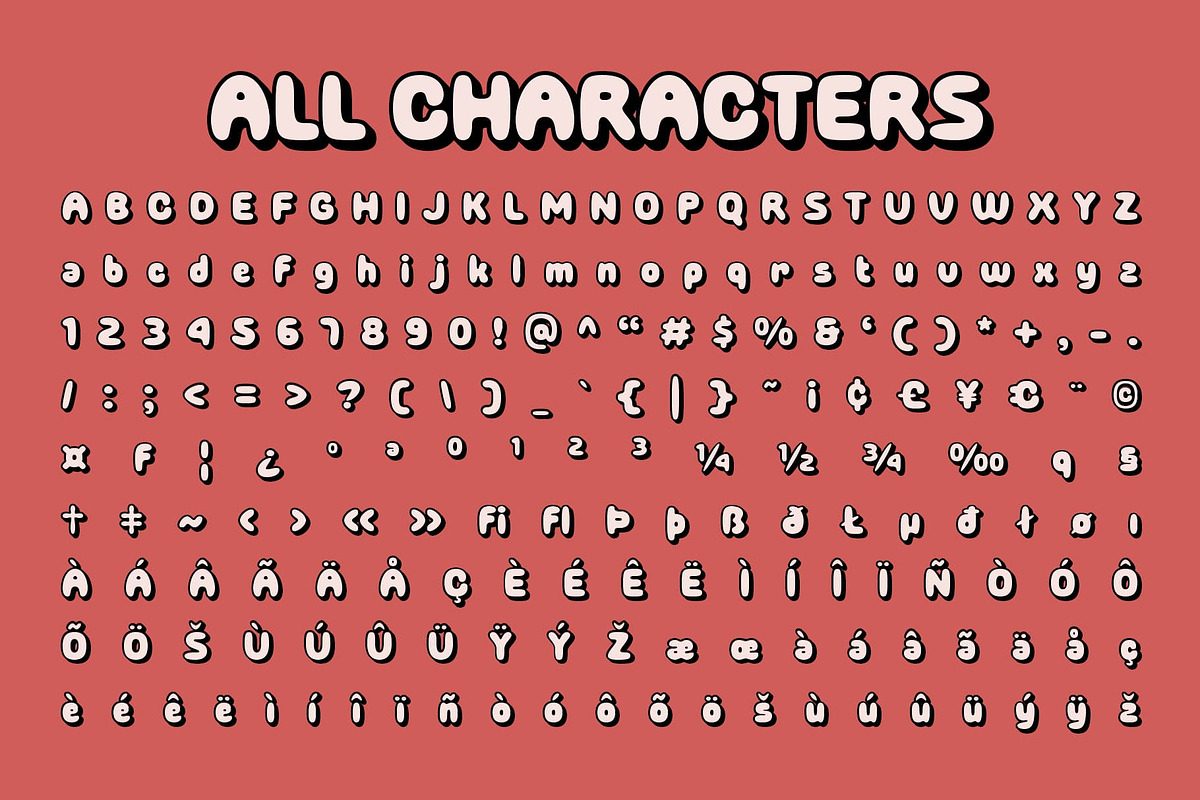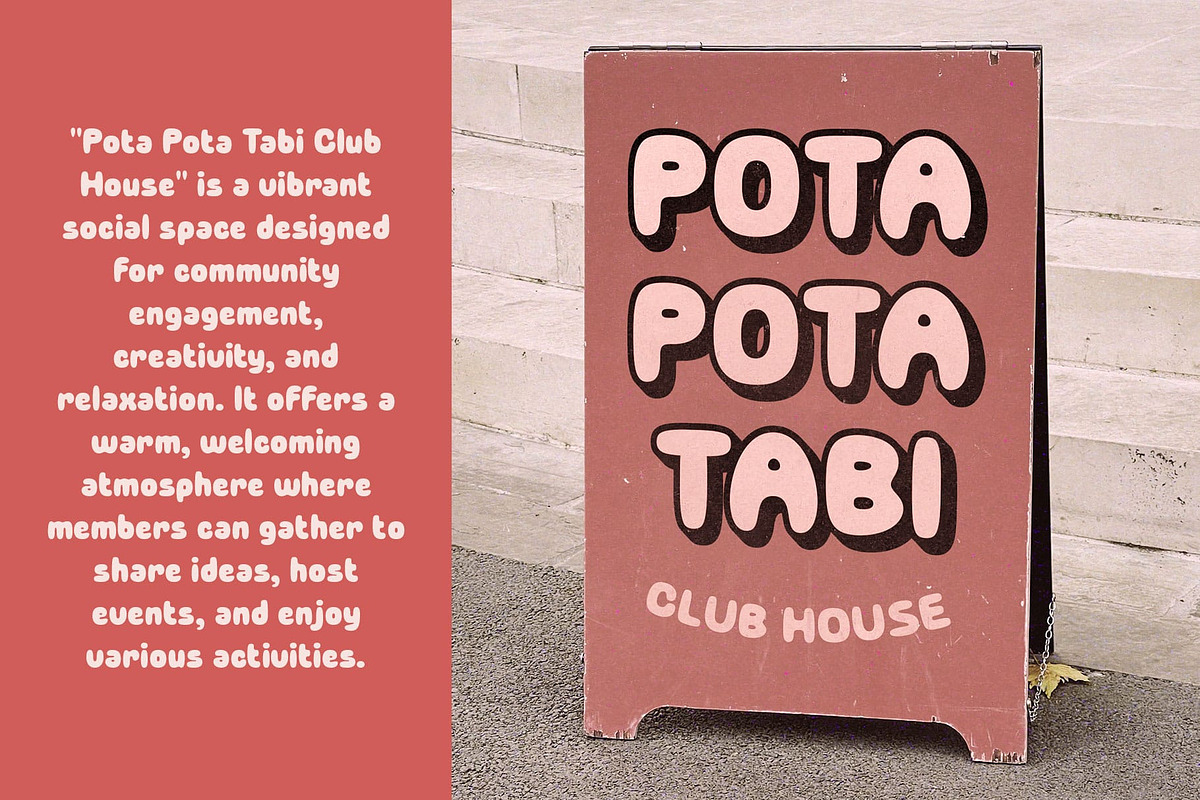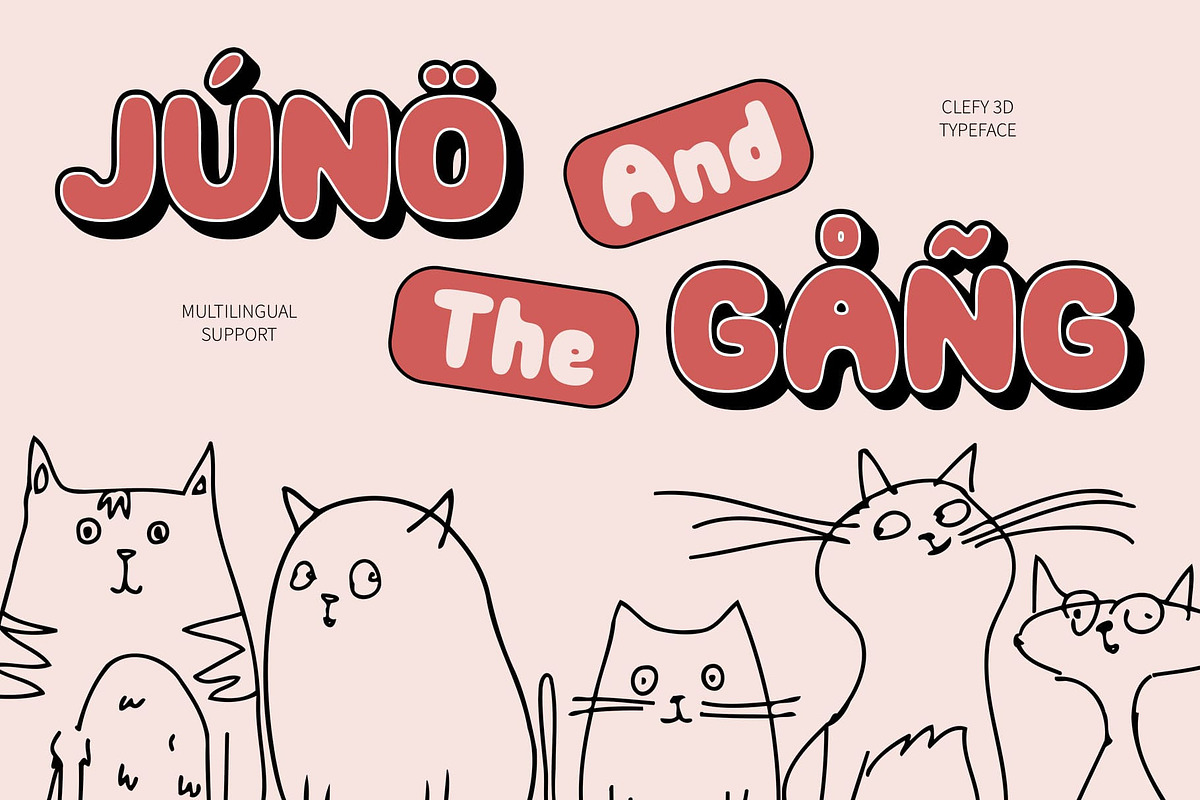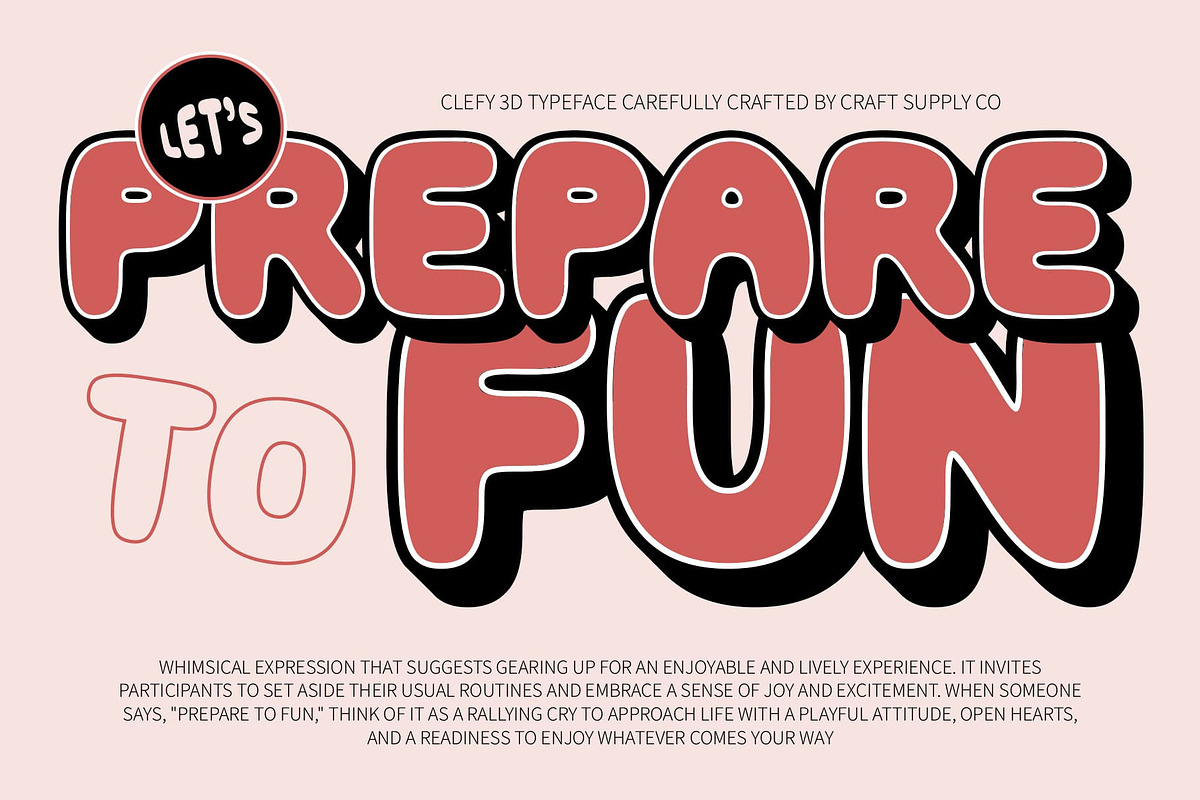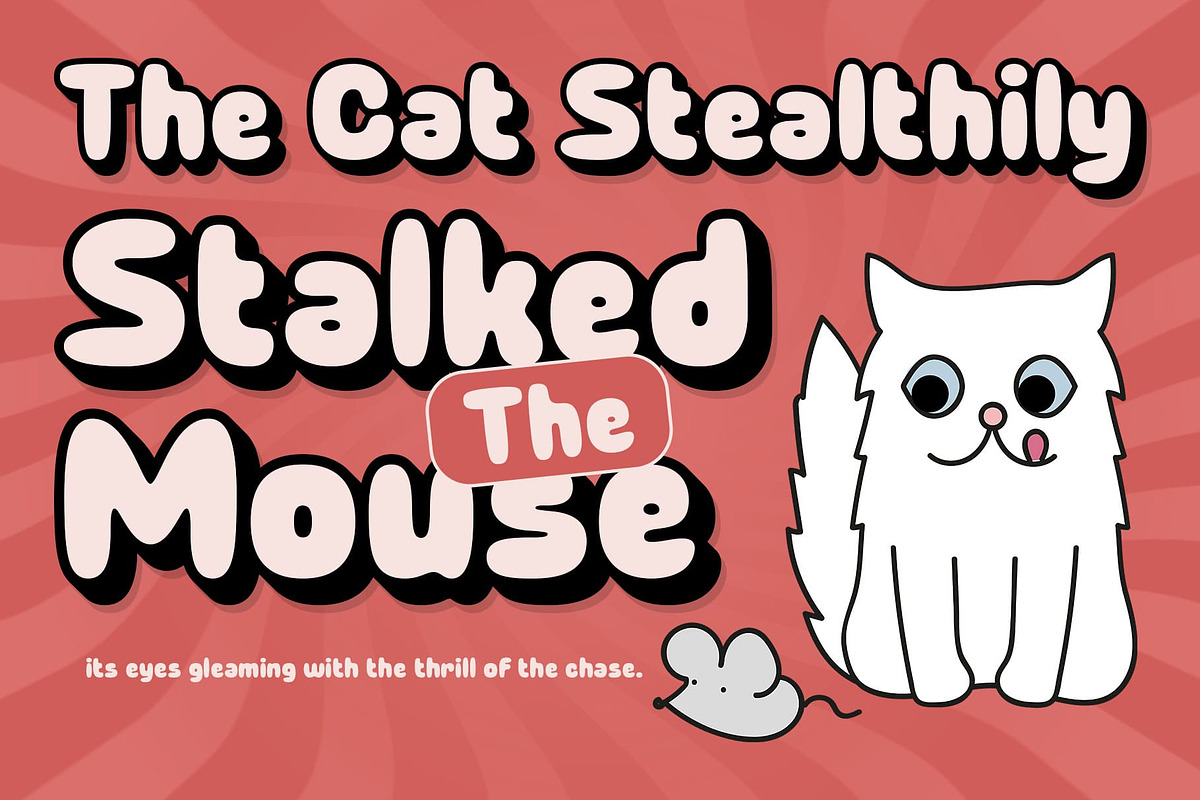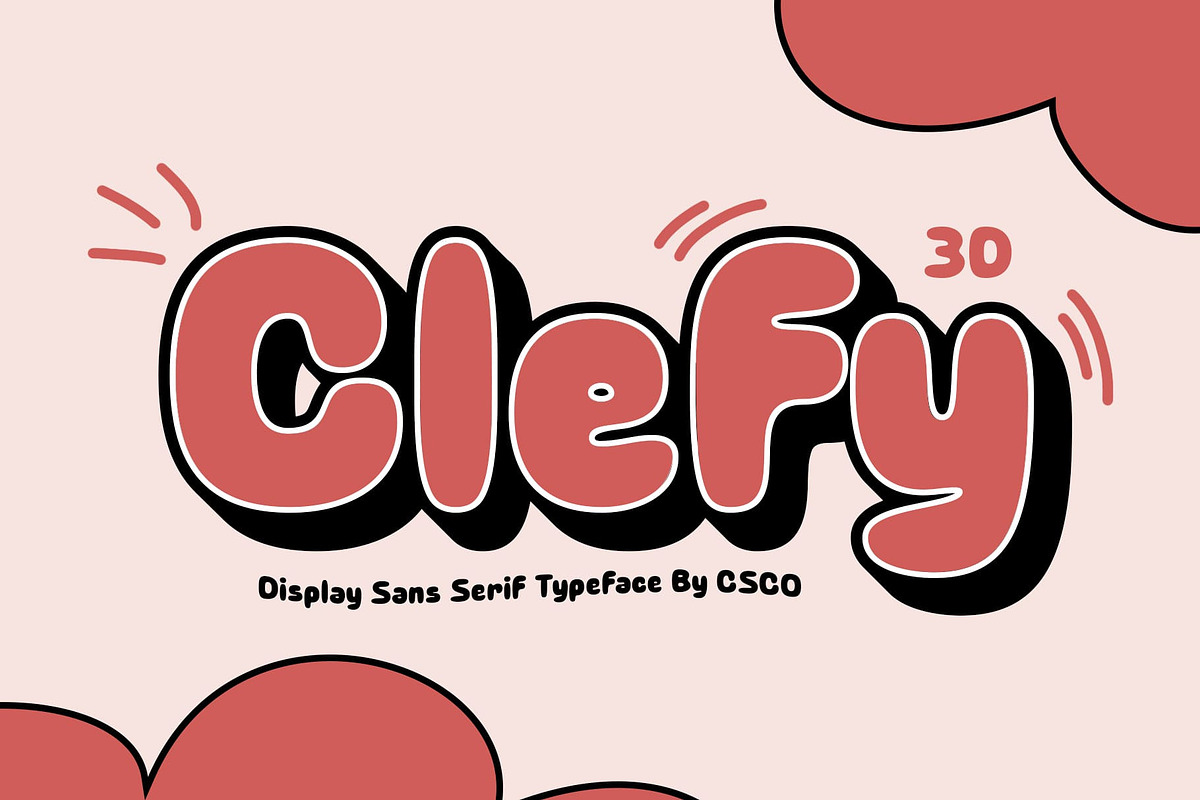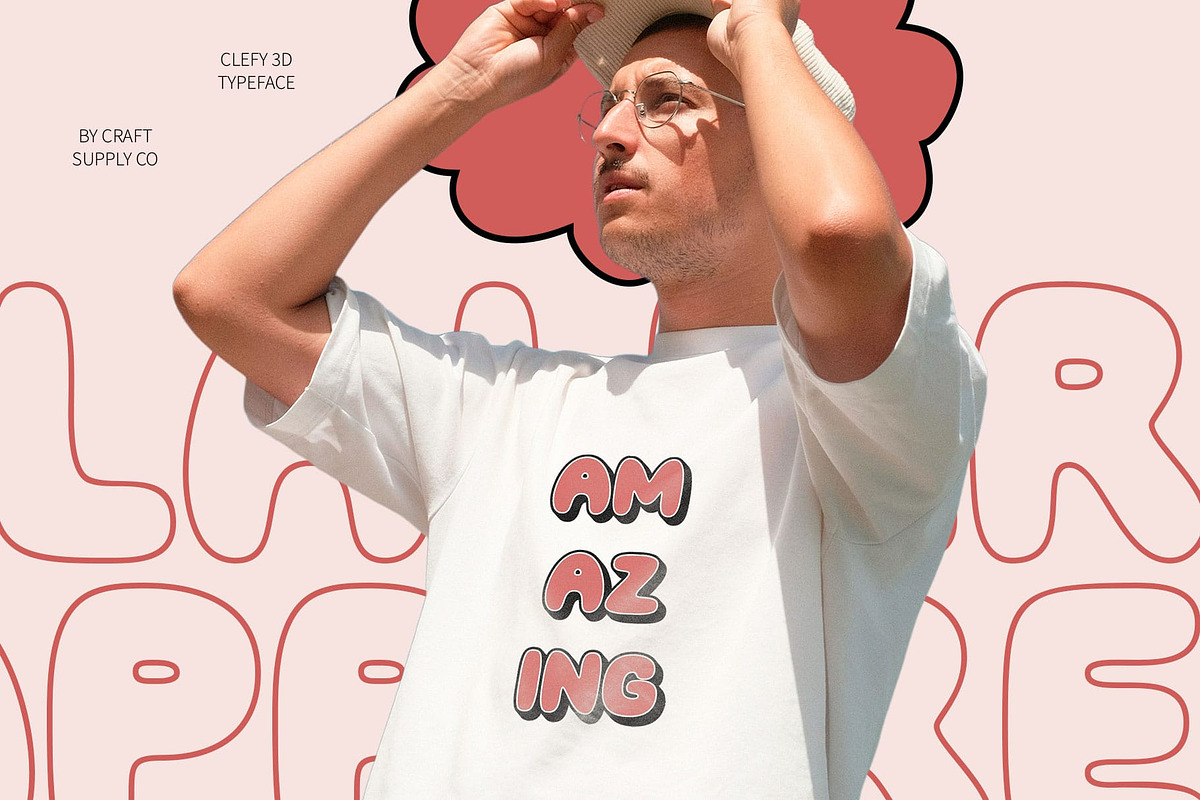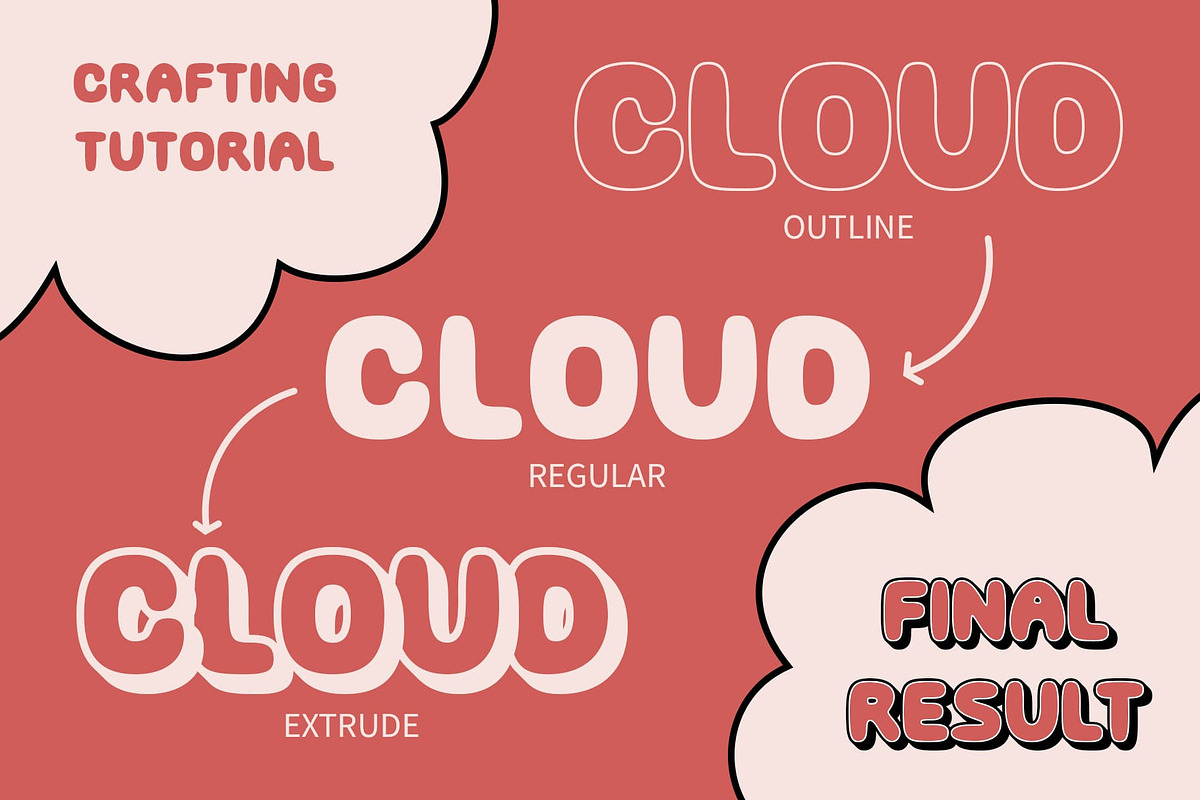
Clefy 3D
Clefy 3D – Cheerful Bubble Display Font with Playful Dimension
Radiant Playfulness and Funky Aesthetics Clefy 3D is a delightful bubble display font that infuses any design with a sense of cheerfulness and fun. The letterforms feature round, puffy shapes that evoke the lightness of bubbles, offering a soft and endearing quality that draws attention. With its charming, whimsical appearance, Clefy 3D perfectly embodies a spirit of joy and playfulness.
Engaging 3D Effect for Added Visual Impact The integrated 3D effect enhances Clefy 3D’s playful character, creating an illusion of depth that makes the letters appear as though they are gently floating or rising from the surface. This visual depth not only captivates the viewer but also adds an engaging dynamic that elevates the overall design, ensuring that your message is communicated with a lively flair.
Ideal for Whimsical and Youthful Projects This font shines in a variety of contexts, making it an excellent choice for event posters, children’s product branding, playful promotional materials, and any creative project that seeks to emphasize joy and whimsy. Clefy 3D’s unique combination of bubbly shapes and a vibrant 3D effect guarantees that it will enhance the appeal and distinctiveness of your work.
- Clefy Regular
- Clefy Outline
- Clefy Extrude Right
- Clefy Extrude Left